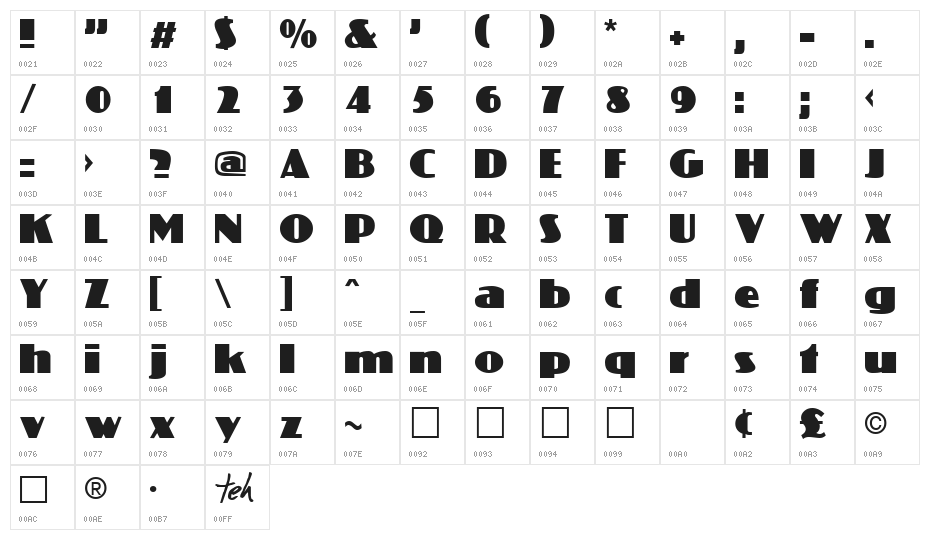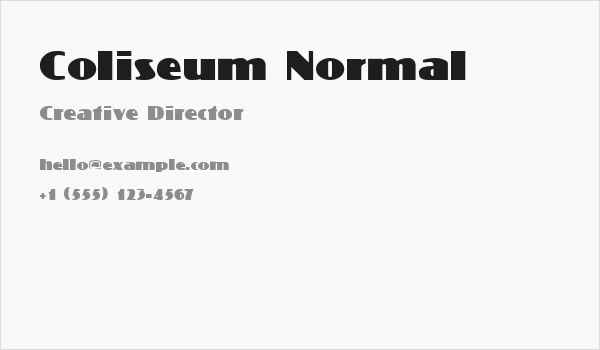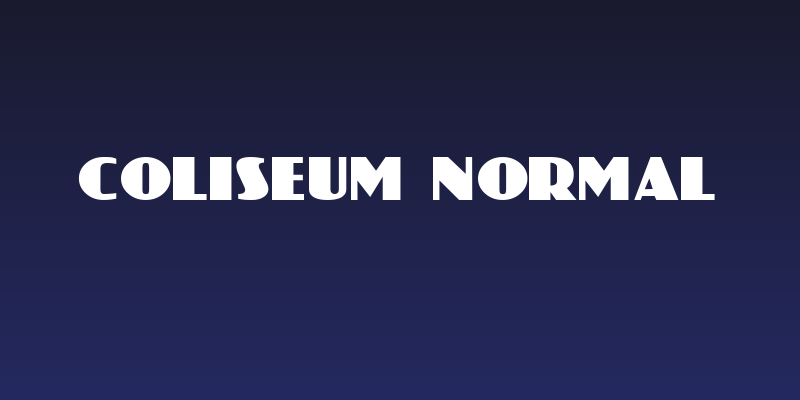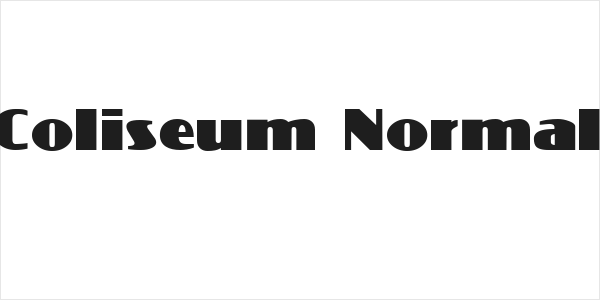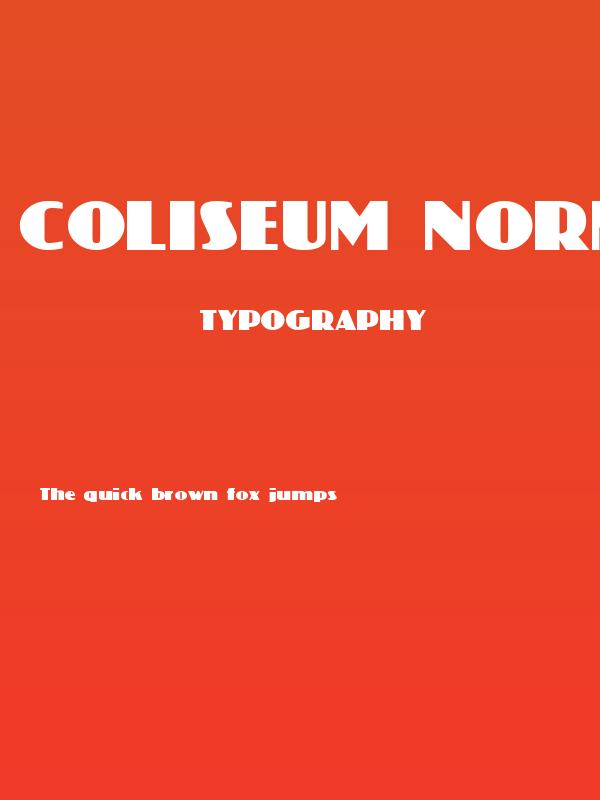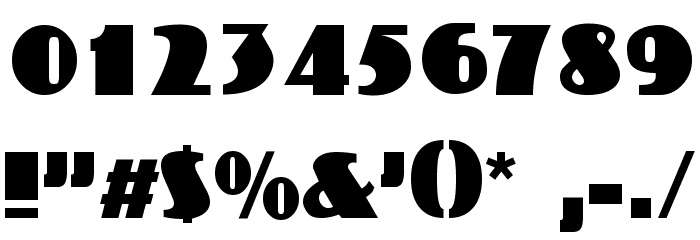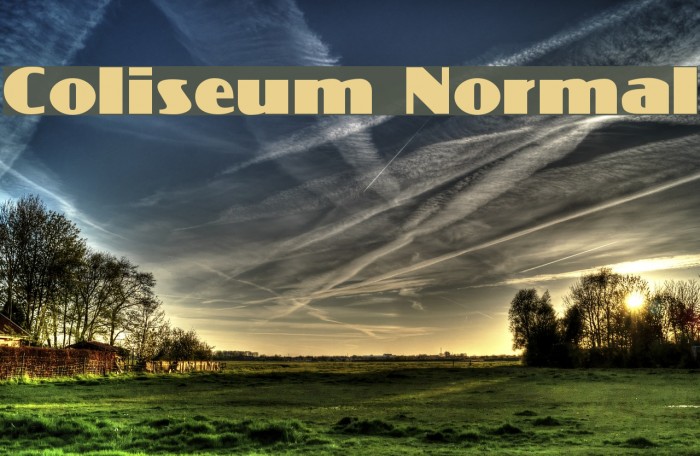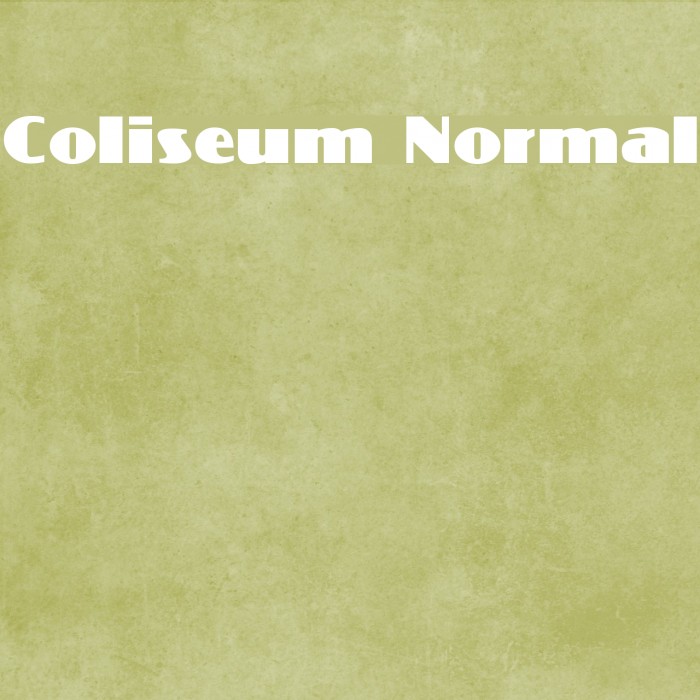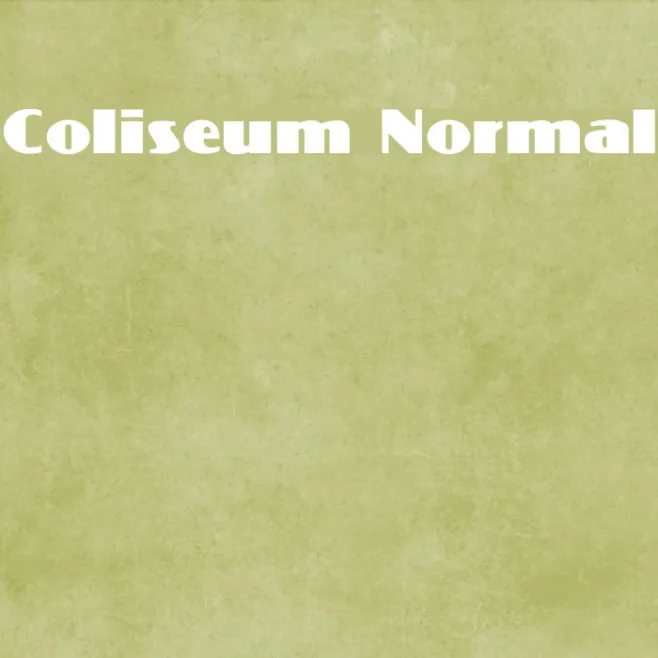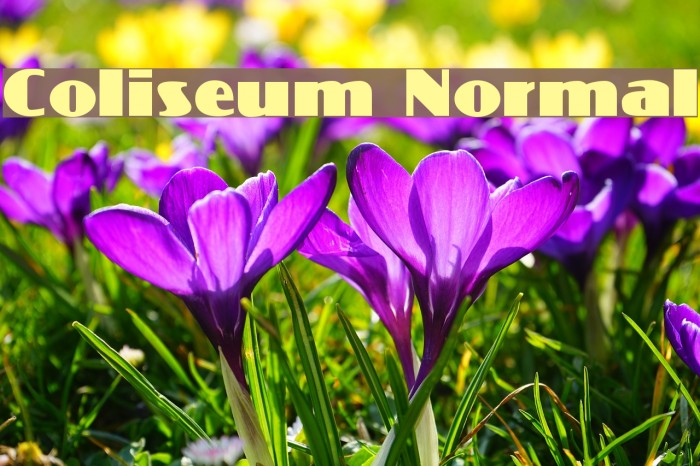
Coliseum Normal Font
Coliseum Normal Description
This font features bold, dramatic letterforms with a strong presence. The uppercase letters are particularly striking, with wide, solid strokes and a slightly condensed appearance. The lowercase letters maintain the boldness, offering a consistent look across both cases. The numerals are equally robust, ensuring visibility and impact. Special characters are designed to match the overall bold aesthetic, making them suitable for attention-grabbing designs. The font's style is reminiscent of classic display typefaces, with a modern twist that makes it versatile for various design needs.
| Proposed Projects | Ideal for headlines, posters, branding, and any project requiring a strong visual impact. |